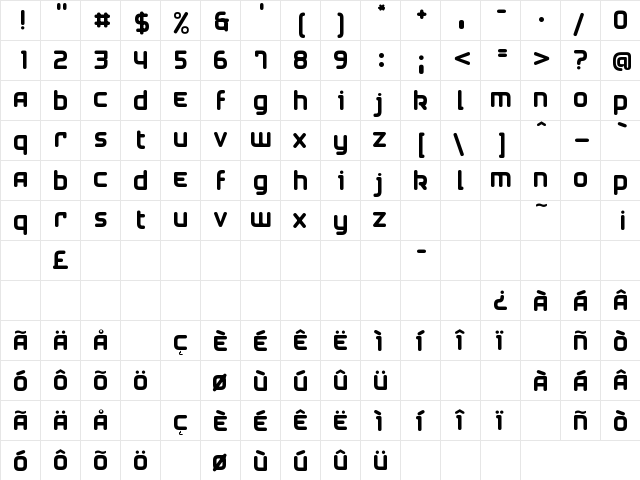
Airstrip Four Regular
Design Context for Airstrip Four Typeface
Airstrip Four is a composed and adaptable typeface that performs quietly and consistently across a wide range of design contexts.